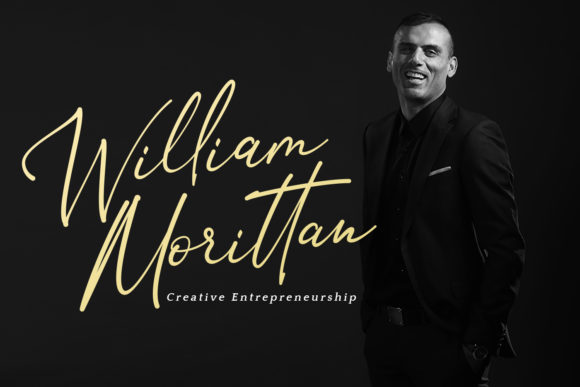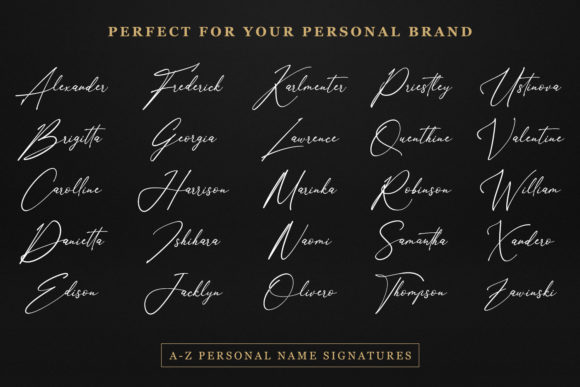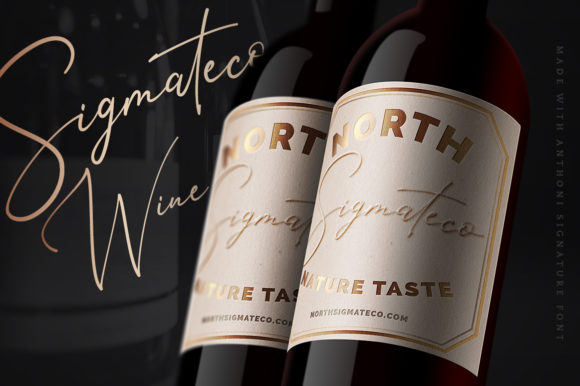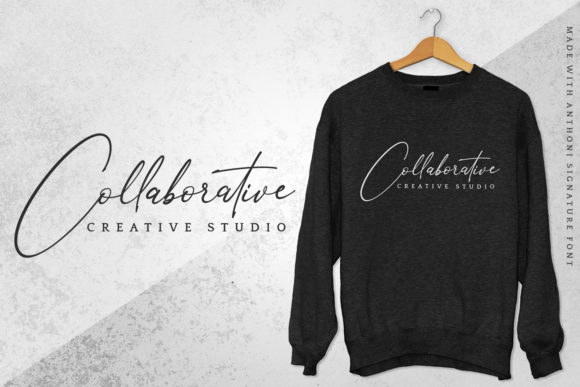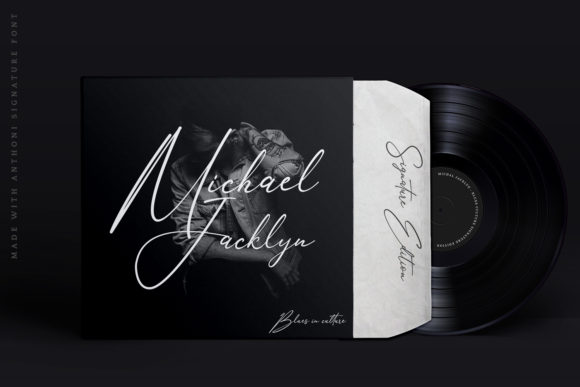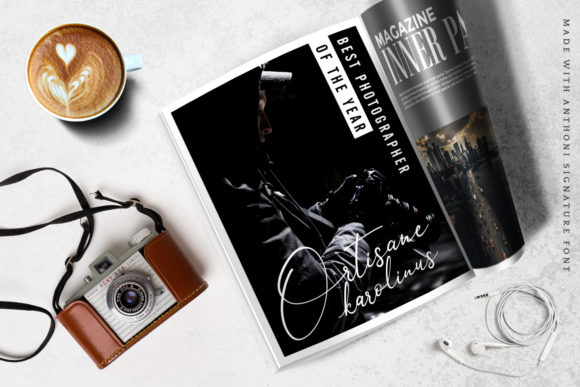
Adding a Personal Touch to Your Designs
Have you ever been stuck on a design project, searching for that perfect finishing touch? The moment when everything comes together, and your creation feels truly authentic? For designers, finding the right font can be the difference between a good design and a great one. That’s where the Anthoni Signature Font comes in – a handwritten signature script that adds a natural and stylish flow to any design idea.
The Anthoni Signature Font is designed to capture the essence of a handwritten signature, with all its imperfections and uniqueness. It’s perfect for designers who want to add an authentic touch to their work, making it stand out from the crowd. With this font, you can create designs that feel personal, relatable, and engaging. Whether you’re working on a branding project, a wedding invitation, or a social media campaign, the Anthoni Signature Font is a valuable addition to your design toolkit.
Anthoni Signature Font Key Features
- Unique Characteristics: The Anthoni Signature Font features a unique, hand-drawn design with a touch of elegance, making it perfect for personal or professional use.
Anthoni Signature Font Review
I recently had the chance to work with the Anthoni Signature Font, and I must say it’s a stylish and modern addition to any design project. Here are some of my thoughts:
- The Anthoni Signature Font is perfect for creating a sleek and sophisticated look. It’s ideal for use in branding, advertising, and other high-end design projects.
- The font is highly customizable, with a wide range of styles and weights available. This makes it easy to find the perfect fit for your design needs.
- The Anthoni Signature Font is also highly legible, even at smaller font sizes. This makes it a great choice for use in print or digital media.
- One of the main limitations of the Anthoni Signature Font is its limited character set. This can make it difficult to use in languages that require a wider range of characters.
- The font may not be suitable for use in informal or casual design projects. Its sleek and sophisticated style may come across as too formal for some applications.
The Anthoni Signature Font is a high-quality addition to any design project. While it may have some limitations, its style and versatility make it a great choice for a wide range of applications. I would definitely recommend it to designers looking for a modern and sophisticated font option.
Anthoni Signature Font is ideal for:
- Personal branding and signature designs.
- Any design project that requires a unique and elegant font.
Getting the Most Out of Anthoni Signature Font
To get the most out of Anthoni Signature Font, try combining it with other elegant fonts and using it in creative ways, such as:
- Using it for headings and titles.
- Pairing it with a bold font for emphasis.